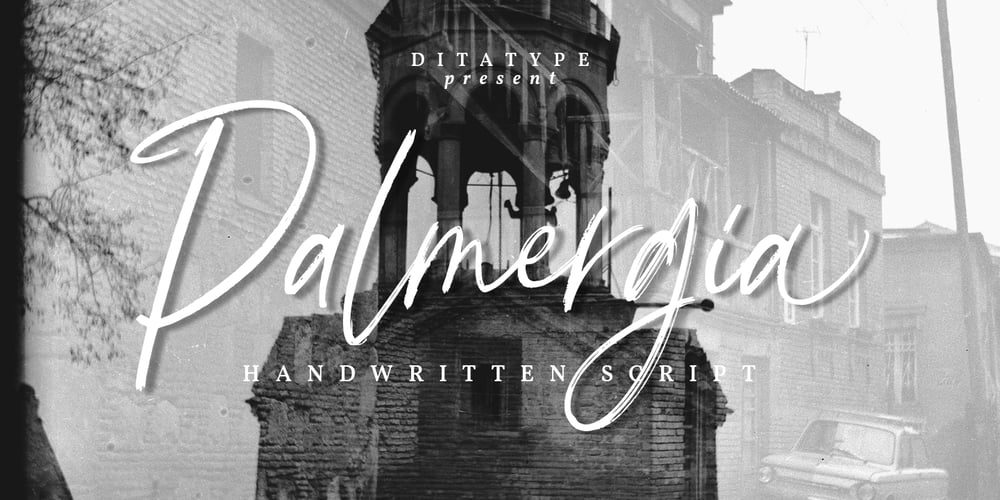
Palmergia Font Family was designed by Donis Miftahudin and published by Ditatype. Palmergia contains 1 styles and family package options. Palmergia is a modern handwritten font. With a classy and natural handwritten style, it brings a classy and chic typeface. Palmergia is best used for branding, logotype, and quotes.Includes: – Palmergia (OTF)Features: – Beautiful Ligatures – Stylistics Set – PUA Encoded – Multilingual Support – Numerals and Punctuation